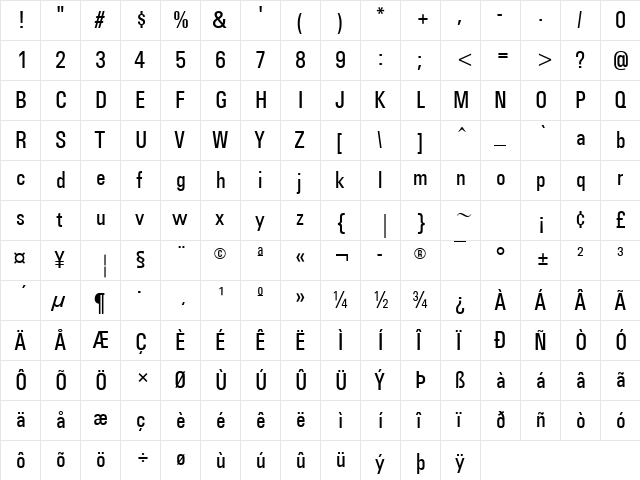
Utah Condensed Regular
Design Context for Utah Condensed Typeface
Utah Condensed offers clean, dependable letterforms without strong stylistic allegiance, making it a practical choice for designers who need flexibility. The condensed width makes it efficient for tight spaces without sacrificing legibility.